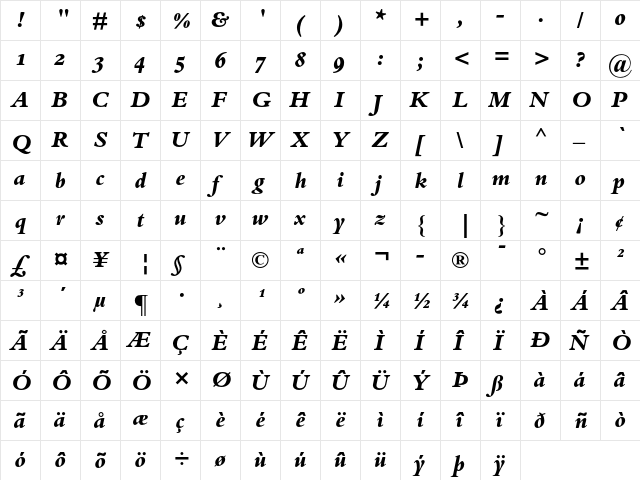
Bembo Extra Bold Italic OsF Font Preview
Bembo Extra Bold Italic OsF
Bembo Extra Bold Italic OsF Font Details
| Style | Extra Bold Italic OsF |
Design Context for Bembo Typeface
Bembo takes a measured approach to typography — its balanced proportions and neutral character make it a reliable workhorse for both digital and print work. The slanted form adds forward momentum and visual energy. The heavy weight commands attention and anchors typographic hierarchies.
Pro Tip: Use Bembo for emphasis, pull quotes, and subheadings where its slanted energy can add rhythm to the layout.